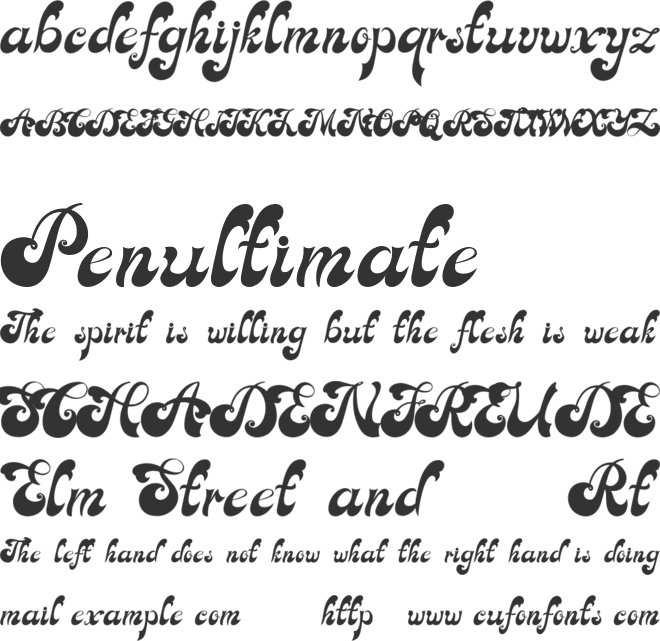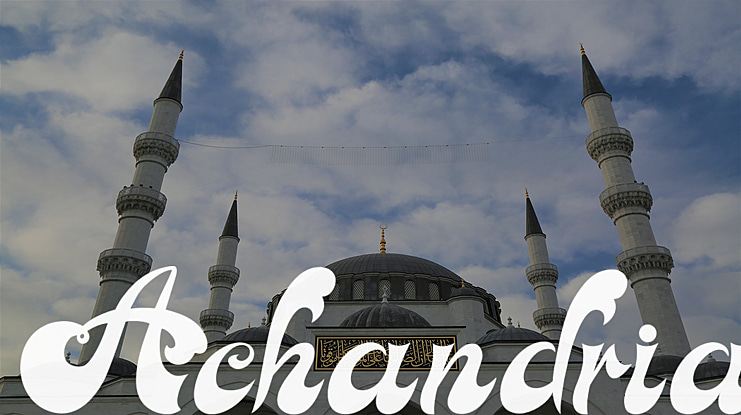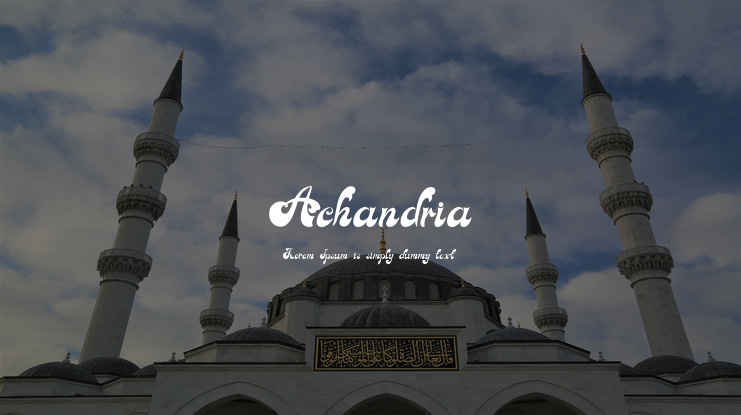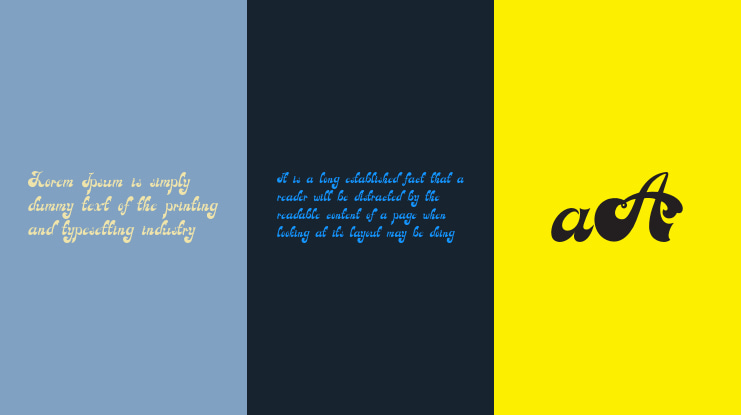
Achandria Font
Tio Yulianto
Introducing Achandria A Retro Font Inspired from retro typography from the 80's combine with bold typography style. Come with an open type feature with a lot of alternates and end swash, it helps you to make great lettering.
Javatype Studio